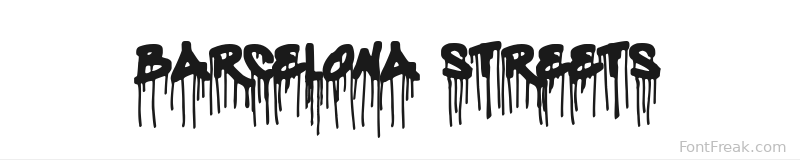
Barcelona Streets
Discover the dynamic Barcelona Streets font by woodcutter Manero, a striking display typeface that captures the vibrant essence of urban life. This font features a bold, playful design with a graffiti-inspired aesthetic, making it a perfect choice for projects that require a contemporary and edgy touch. Its unique stroke weight varies dramatically, creating an eye-catching contrast that draws attention. The letters are spaced generously, allowing for easy readability while maintaining a lively, expressive character. The dripping effect adds a layer of creativity, offering a sense of movement and spontaneity.
Barcelona Streets font is ideally suited for a variety of applications. Its energetic style makes it an excellent choice for street art posters, music festival promotions, and urban-themed branding. Graphic designers can utilize this font for attention-grabbing advertisements, while small business owners might find it perfect for restaurant menus or café signage that aims to convey a casual and inviting atmosphere. Additionally, content creators can employ this font in social media graphics or vibrant blog headers that resonate with a youthful audience.
What sets the Barcelona Streets font apart is its distinctive style, which encapsulates the spirit of Barcelona's bustling streets. This font embodies creativity and urban culture, making it a standout choice for those wanting to infuse their designs with personality and flair. Don’t miss the opportunity to elevate your projects with this unique typeface; explore the Barcelona Streets font free download today.